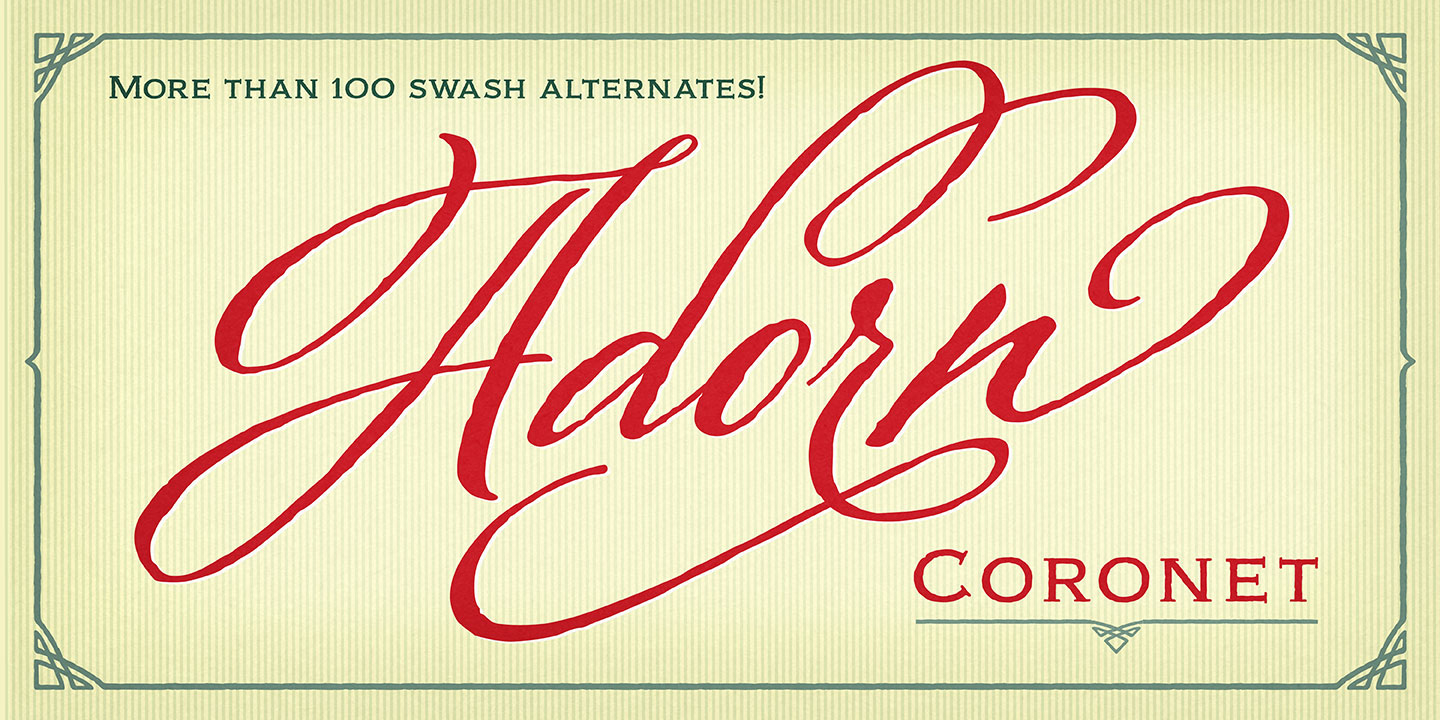
Adorn Coronet is a script and modern calligraphy font published by Laura Worthington.
Adorn Coronet is one of twenty fonts available in the Adorn family of seven display fonts, four script designs, monograms, ornaments, illustrations, banners, frames, and catchwords.
Adorn Coronet’s script face exemplifies the Adorn spirit of both modernizing and personalizing typefaces. It’s crisp, angular, and straightforward; it adds a snappy yet subtle edginess, even a slight sense of masculinity, to a design. With 268 swashes and alternate letterforms.